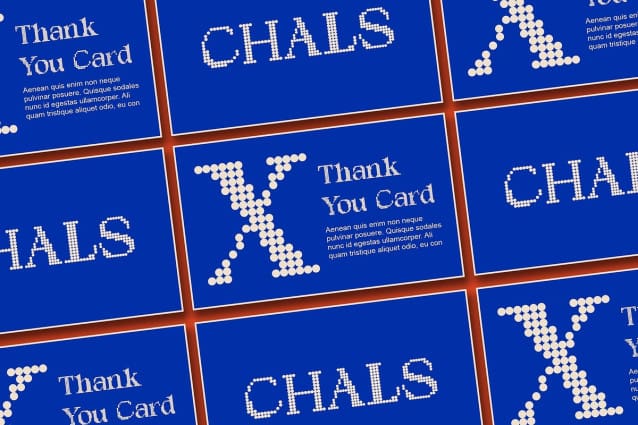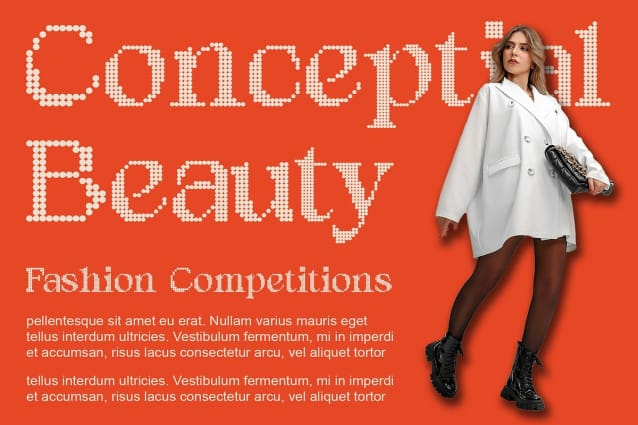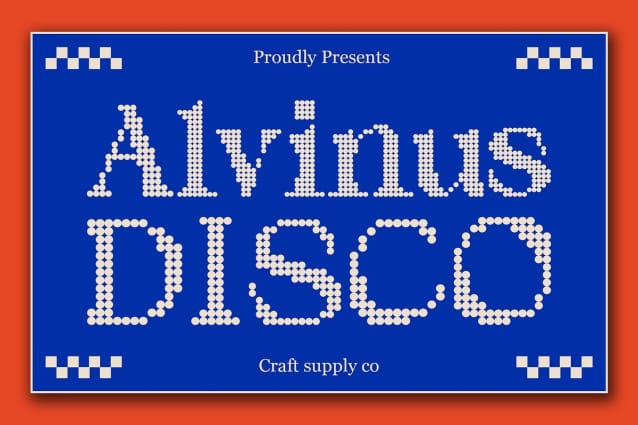
Alvinus Disco Font
Alvinus Disco Font is a serif font that pulsates with disco vibes, featuring dots that add a rhythmic flair to your designs. Its unique style brings a touch of retro glamour to your projects, making them stand out with a groovy and captivating presence.
Ideal for Displays Designed to dazzle, Alvinus Disco is perfect for headlines, banners, and other display purposes. Its disco-inspired dots and serif font style ensure that your message is both seen and remembered.
Versatile and Dynamic Despite its disco theme, Alvinus Disco is versatile and dynamic. Its dotted design makes it suitable for a wide range of projects, from branding to editorial design, where a font with character and charm is essential for making a statement.
Perfect for Adding a Retro Touch Alvinus Disco is ideal for projects that require a font with a retro touch. Whether you’re designing a poster, logo, or website, this font will undoubtedly add a unique and memorable element to your designs.